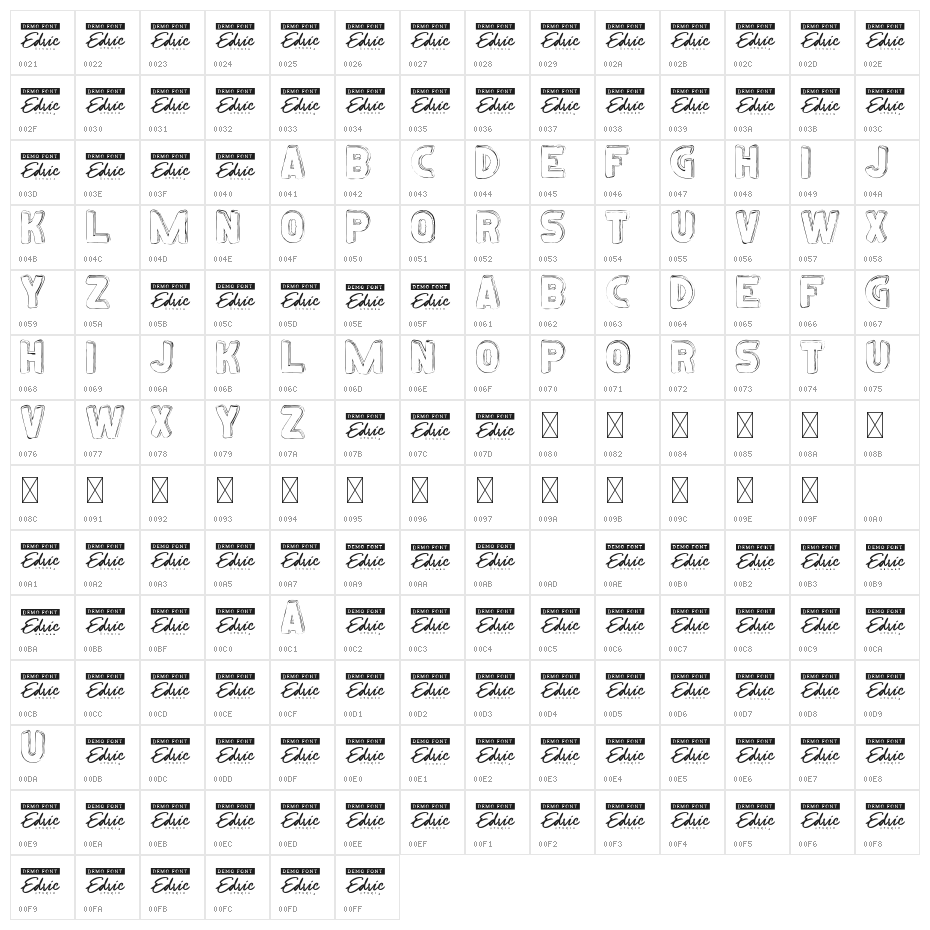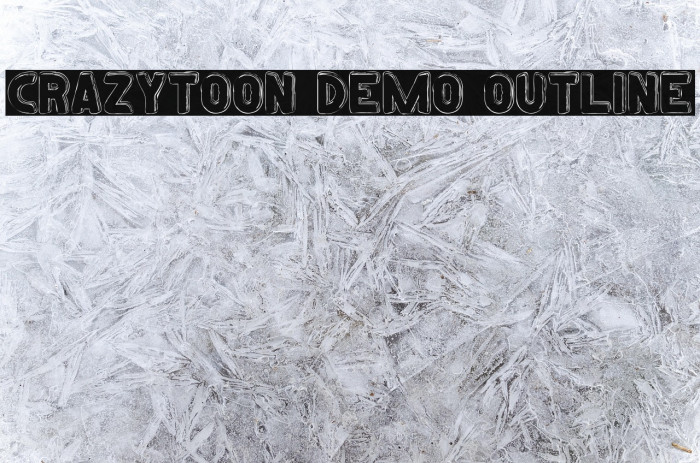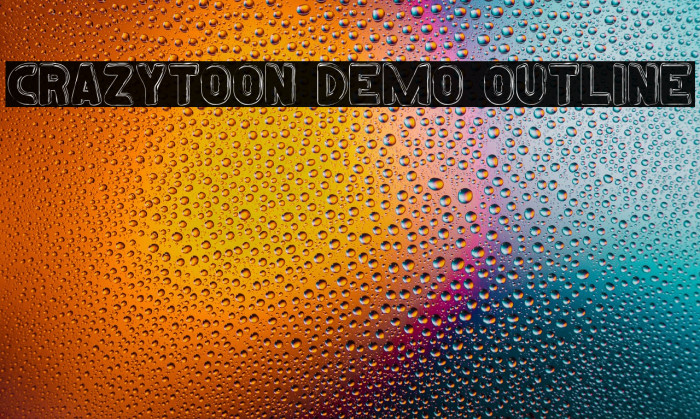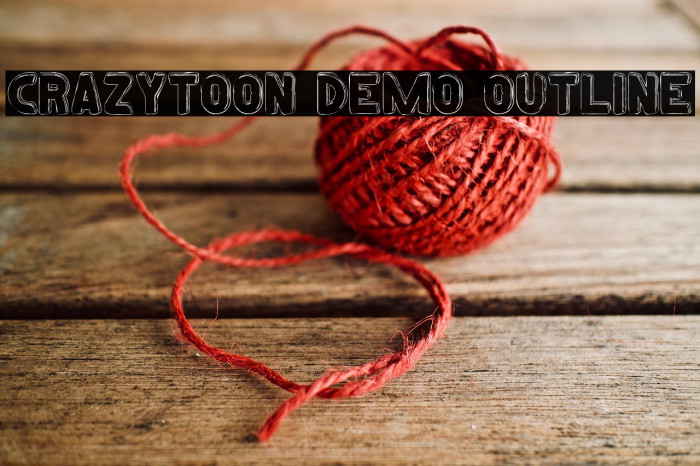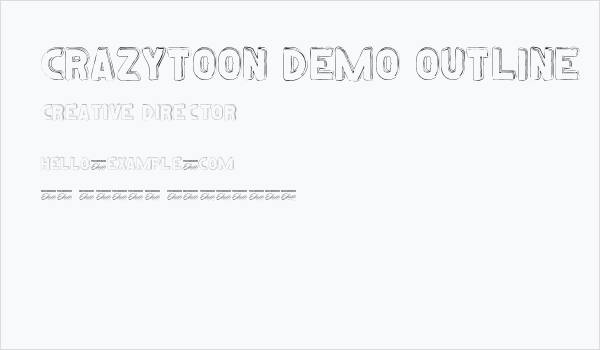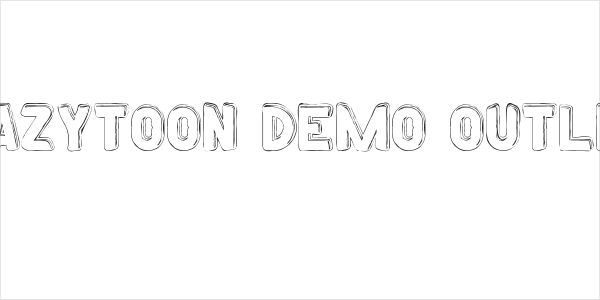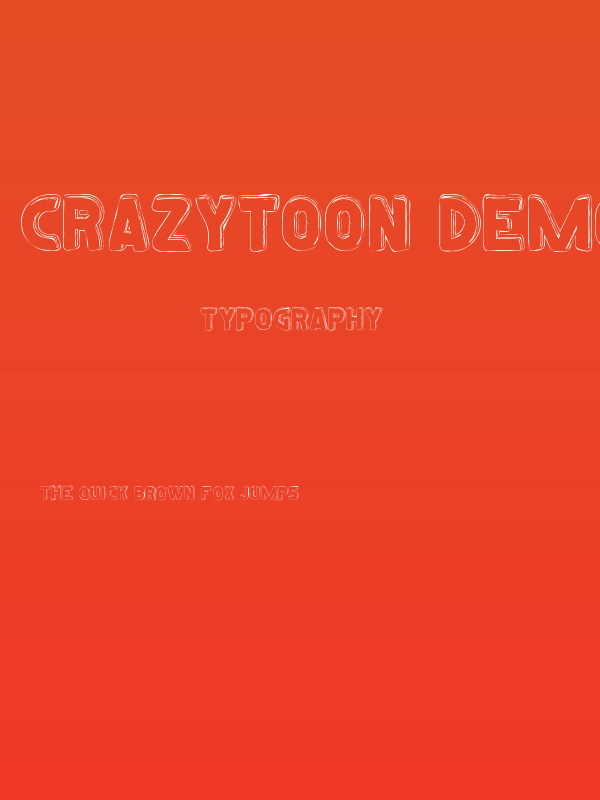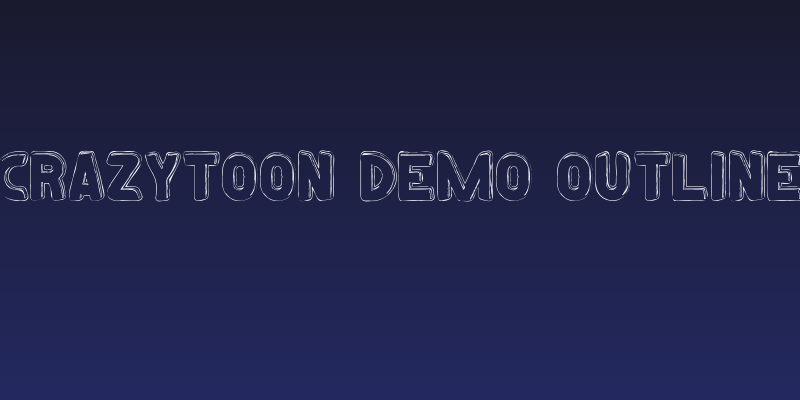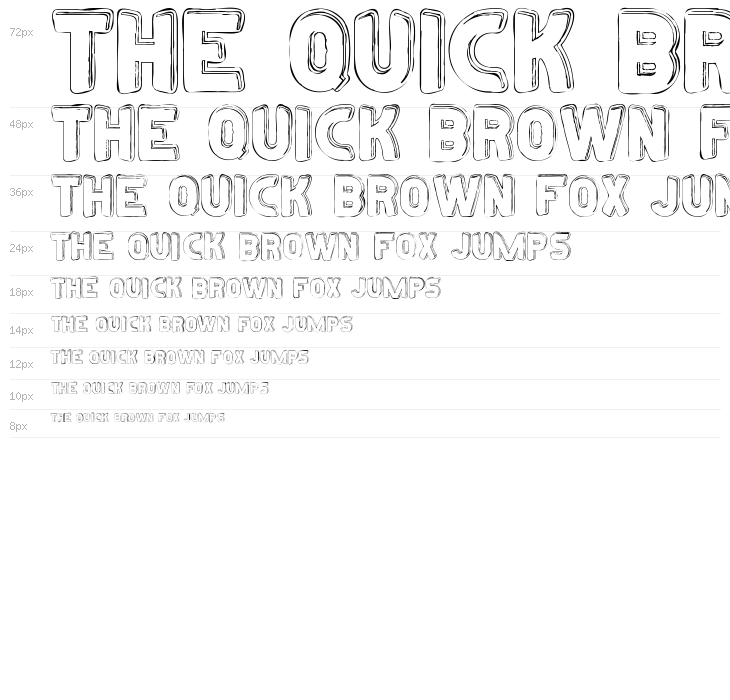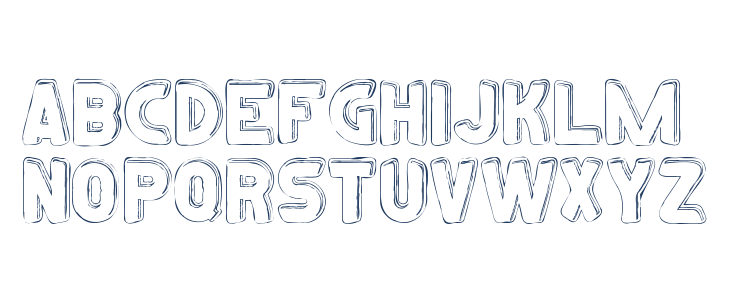
Crazytoon Demo Outline Font
Crazytoon Demo Outline Description
This font features a playful and bold outline style, characterized by its cartoonish and whimsical appearance. The letters are uppercase with a thick, hand-drawn outline that gives a sense of movement and energy. The strokes are consistent in width, creating a uniform look across all characters. The font has a lively and informal feel, making it suitable for projects that require a fun and engaging visual element. Its unique style is perfect for capturing attention and adding a touch of creativity to any design.
| Overall Style | Playful, Cartoonish, Whimsical |
| Proposed Projects | Ideal for children's book covers, comic strips, playful branding, and eye-catching posters. |